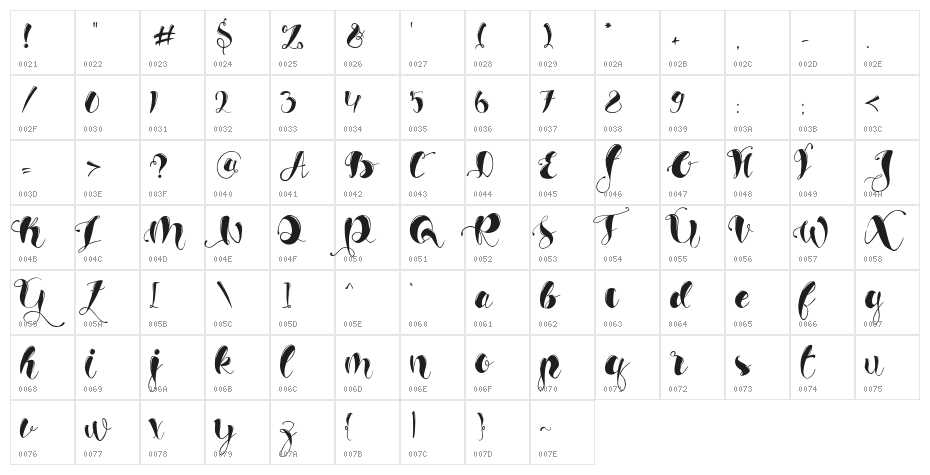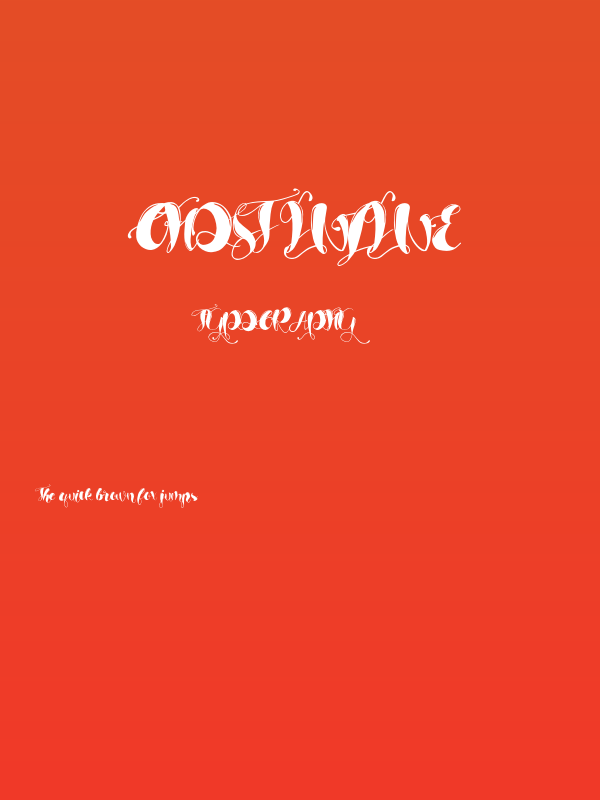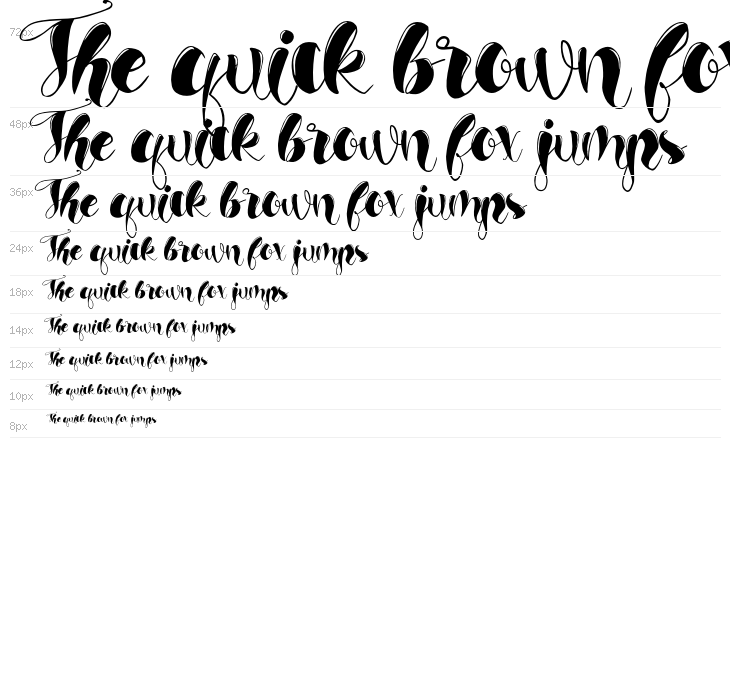
ghost inline Font
ghost inline Description
This font exhibits an elegant and flowing script style, characterized by its intricate and decorative letterforms. The uppercase letters are bold and sweeping, with dramatic flourishes and loops that give a sense of movement and grace. The lowercase letters maintain a consistent style, with smooth curves and a slightly more compact form, yet still retaining the decorative flair. Numbers and special characters follow the same ornate style, ensuring a cohesive look across all elements. The overall appearance is both sophisticated and artistic, making it suitable for projects that require a touch of elegance and creativity.